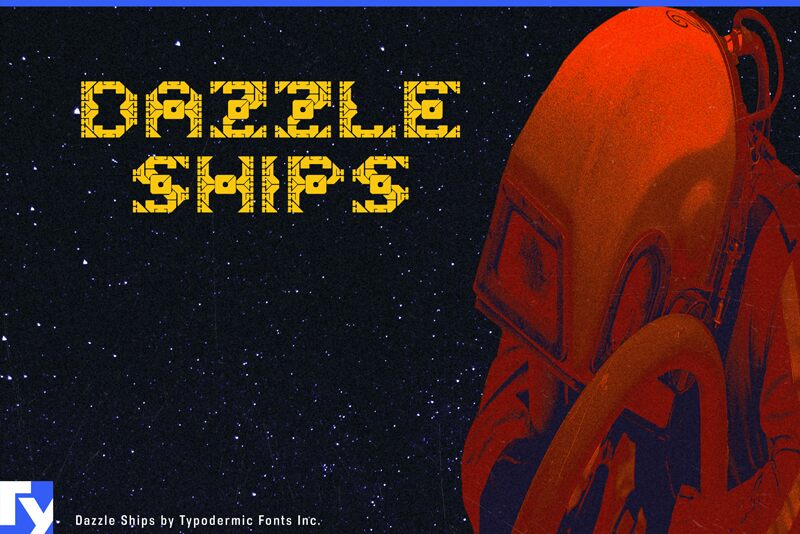
I created Dazzle Ships, the nonsensical segmented LCD font back in 1996. Its truly a delight to read and I hope that someday, all printed documents will employ Dazzle Ships. The previous version of Dazzle Ships only supported a handful of languages. Now it supports two handfuls and a footful of languages. And the people rejoiced in the streets.